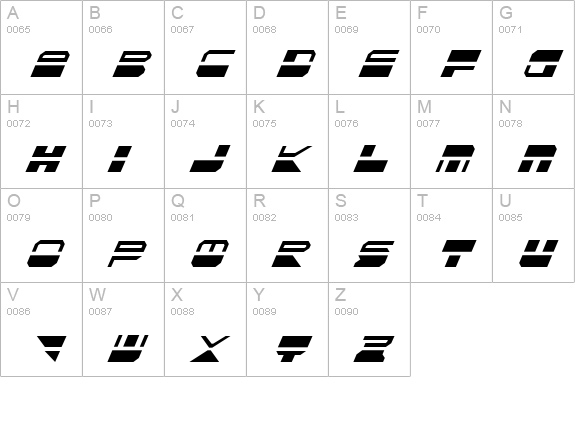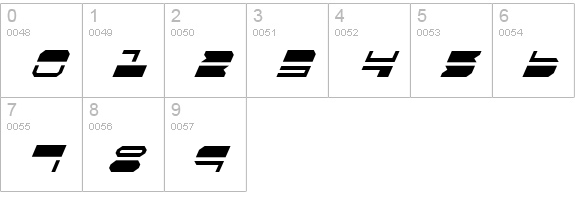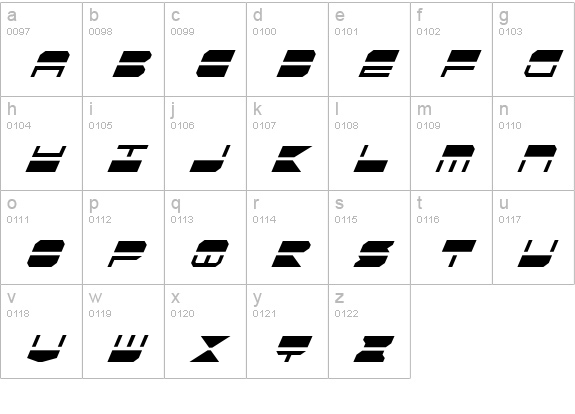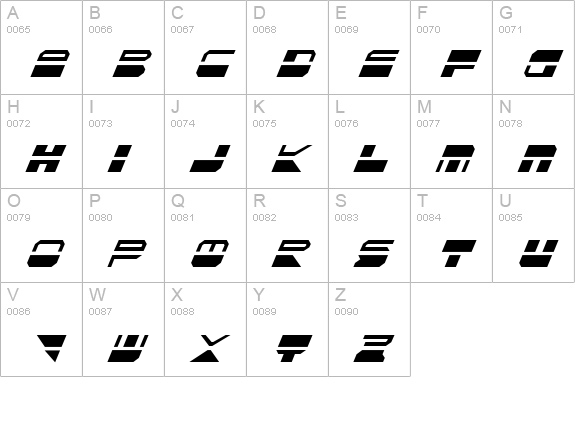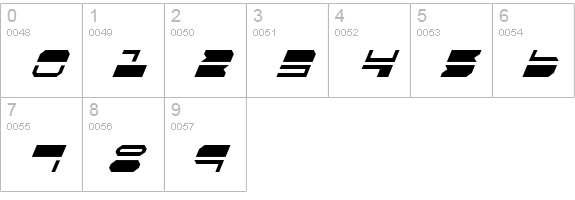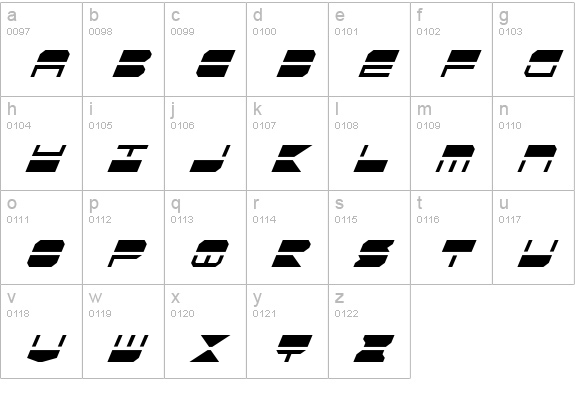
Quickmark Condensed Italic is a distinctive, condensed-width, italic variant in the Quickmark typeface family \xE2\x80\x94 well suited to design and typography projects.
Quickmark Condensed Italic font is a sleek and modern typeface that exudes sophistication and elegance. Its italic style adds a touch of flair to any design, making it perfect for projects that require a touch of finesse. The condensed design also ensures that text appears clean and compact, making it ideal for headlines and titles. What makes Quickmark Condensed Italic font even better is that it is completely free to download at FontsMarket.com. This means that you can easily access this stylish font for all your creative endeavors without any cost. Whether you're working on a branding project, website design, or any other graphic design project, Quickmark Condensed Italic font is sure to elevate your work with its unique and contemporary look. Download it today and add a touch of sophistication to your designs!